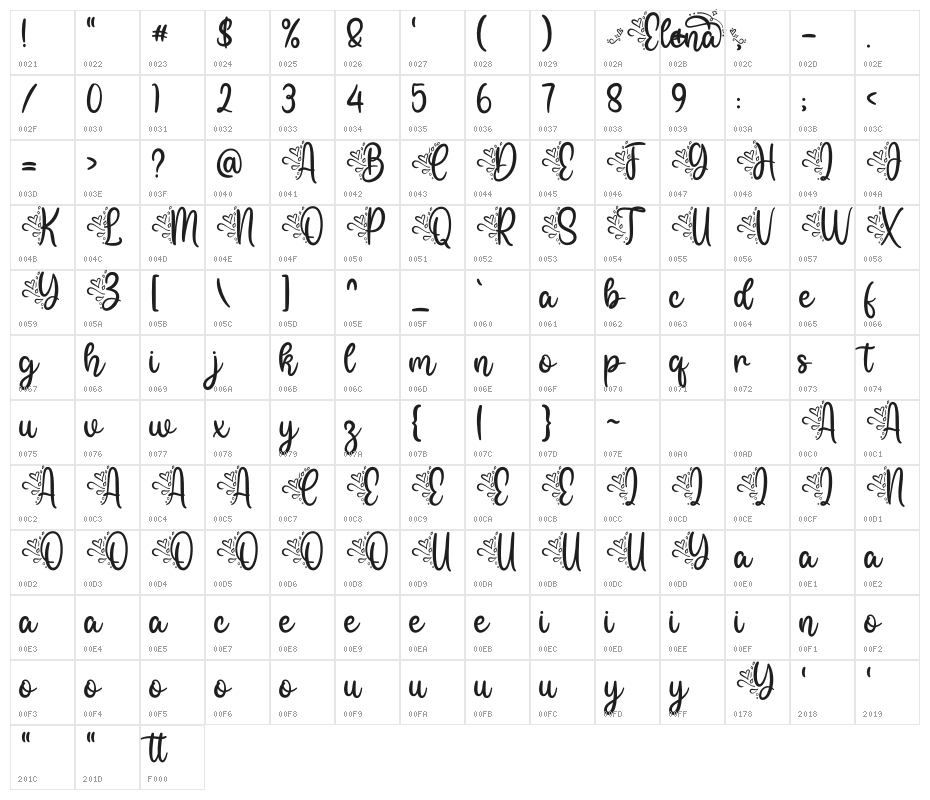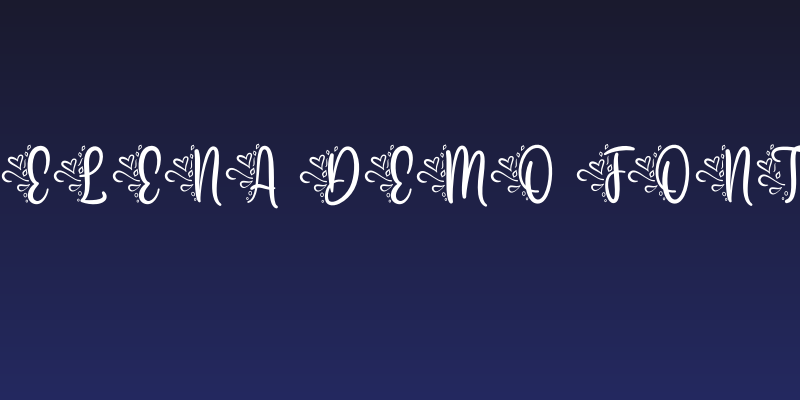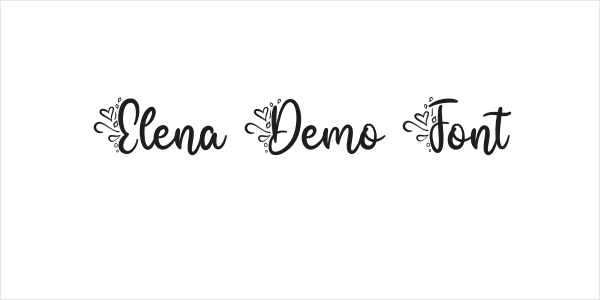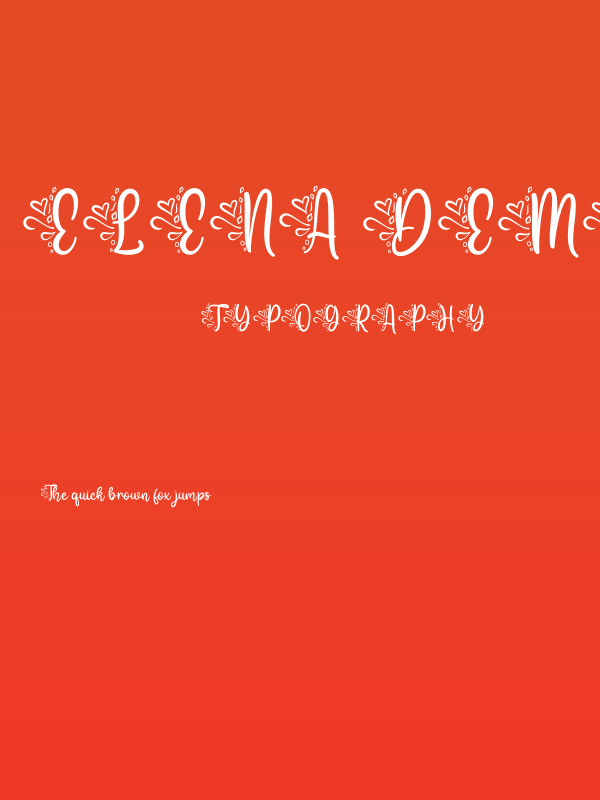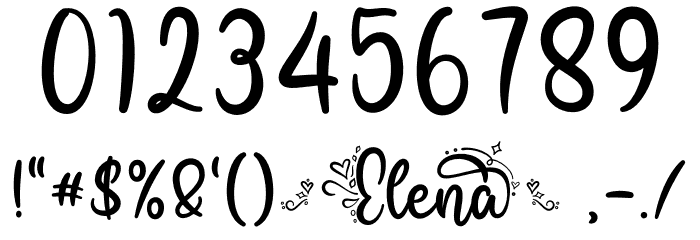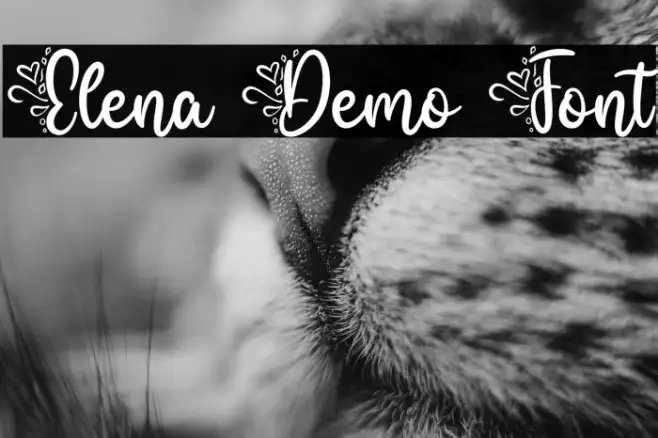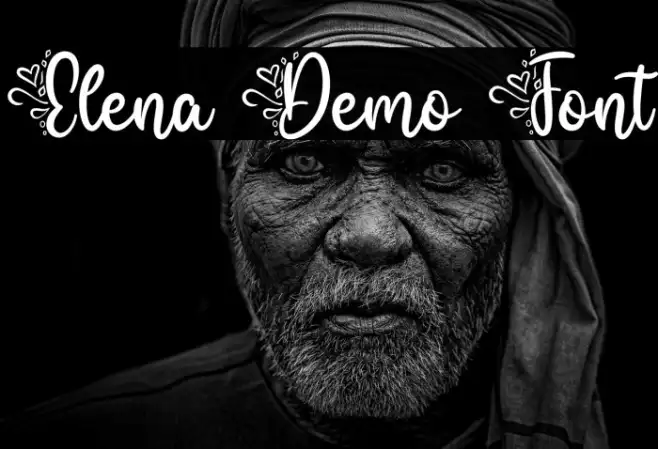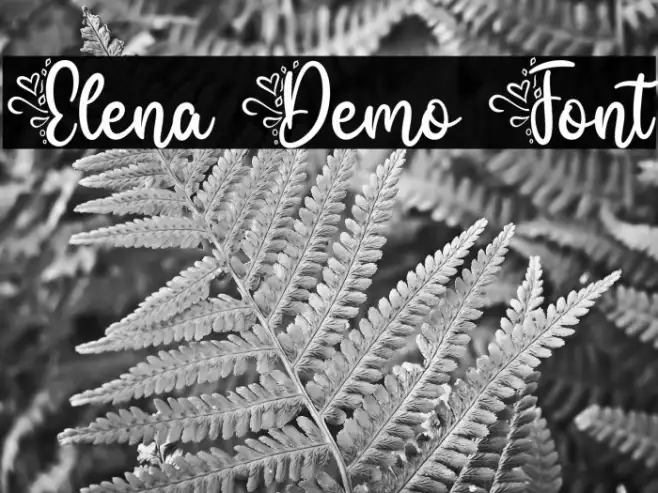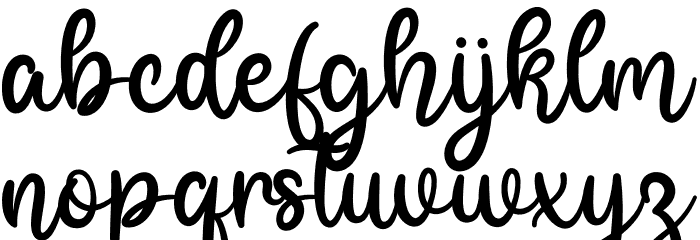
This font features a charming and whimsical style, combining decorative elements with a handwritten script. The uppercase letters are adorned with intricate floral motifs, adding a playful and artistic touch. The lowercase letters maintain a smooth, flowing script that is both elegant and approachable. Numbers are clear and consistent with the overall style, while special characters are thoughtfully designed to complement the font's decorative nature. This font exudes a sense of creativity and warmth, making it ideal for projects that require a personal and artistic flair.
| Overall Style | Decorative, Whimsical |
| Use Case | Logos, Invitations, Artistic Projects |
| Proposed Projects | Ideal for wedding invitations, greeting cards, branding projects, and artistic posters. |